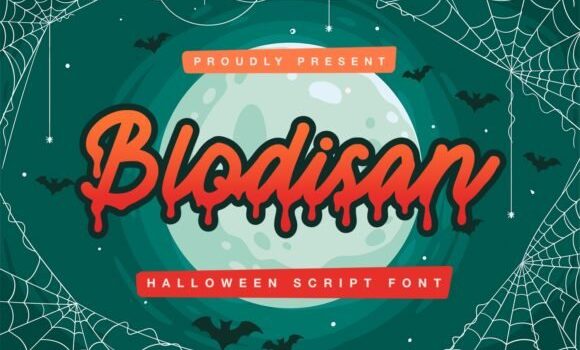
Blodisan Font – Free Download Introduction to Blodisan Font Blodisan is a simple, neat lettered and spooky handwritten font. 📸 Preview Gallery 5 images 📌 Product Name Blodisan Font 👤 Author Typefar 📂 Category Explore ⬇️ Download Blodisan Font FREE